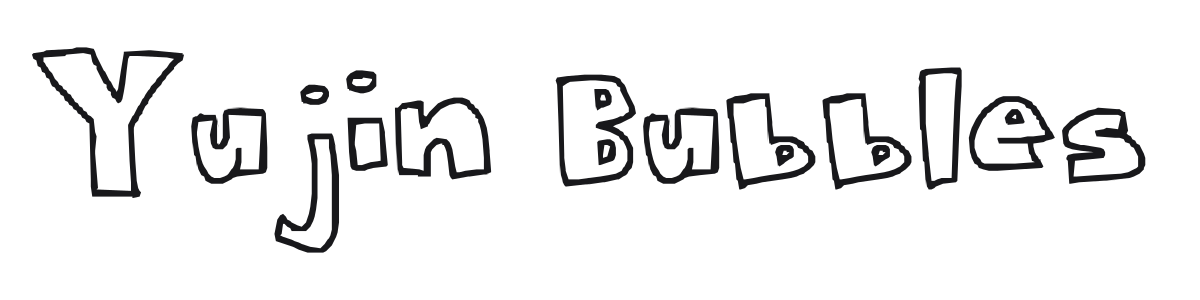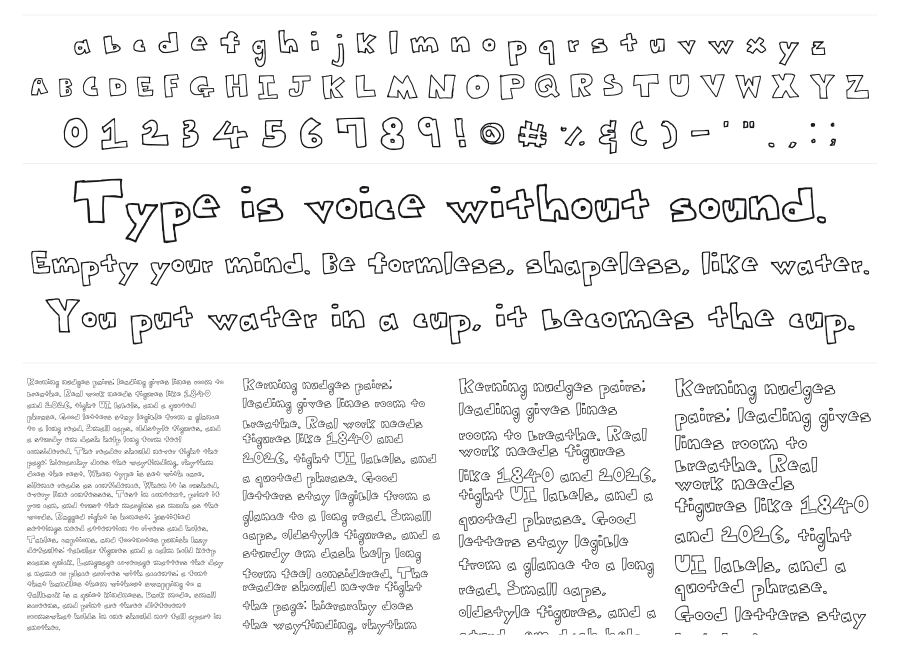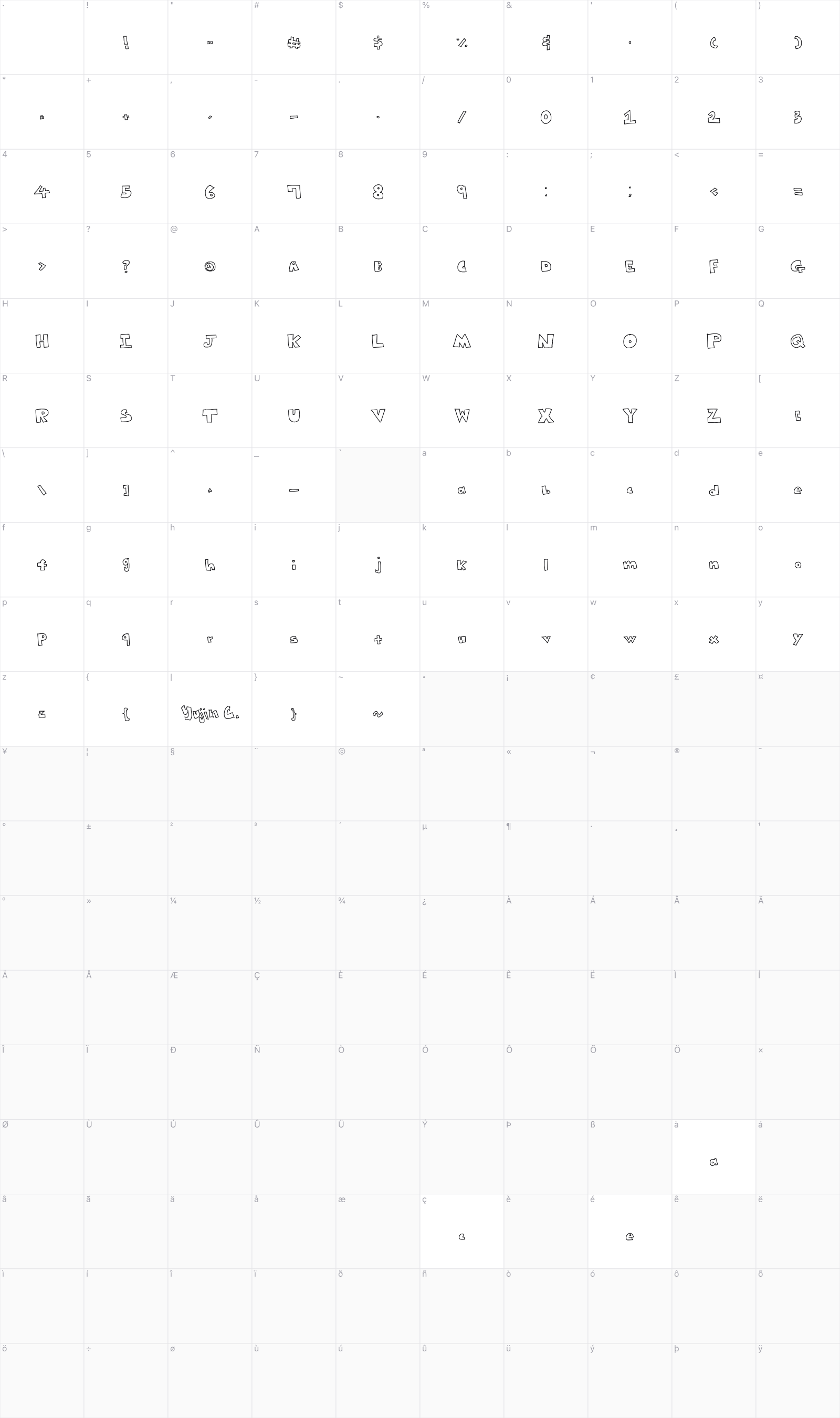
Yujin Bubbles
by Yujin Chun
Yujin Bubbles is a hand-drawn bubble-letter font traced directly from the personal handwriting of MissYujin. Each character has a thick outline, rounded terminals, and a slightly wobbly edge that keeps it feeling genuinely hand-made rather than digitally constructed. It suits anywhere a bold, cheerful personality is needed: kids' content, party graphics, casual branding.